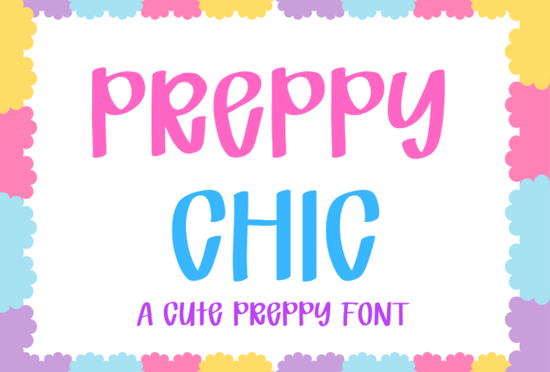
If you're looking for a font that blends bubbly handwriting with preppy confidence, Preppy Chic Font might be exactly what your next project needs. It’s got that friendly, hand-drawn look thick, rounded letters with just enough irregularity to feel authentic but also carries a bold, modern energy thanks to its clean strokes and playful contrast. Whether you’re designing social posts for a teen clothing brand or making cheerful classroom labels, this font adds personality without sacrificing readability.
What makes Preppy Chic Font stand out?
Unlike overly stylized script fonts that can be hard to read at small sizes, Preppy Chic keeps things chunky and clear. Its letterforms are based on bubble writing but refined for contemporary use smooth curves, consistent weight, and subtle imperfections that mimic real pen-on-paper texture. The high-contrast pink-and-blue palette shown in many previews isn’t baked into the font file itself (you’ll apply colors in your design software), but it hints at how well this typeface works with bright, happy color schemes.
It’s especially effective for short bursts of text: headlines, product names, quote graphics, or sticker captions. Because of its bold presence, it holds up beautifully in both digital and printed formats from Instagram stories to sublimation mugs.
Who should use this font?
Preppy Chic shines in projects targeting younger audiences or anyone drawn to upbeat, casual-prep aesthetics. Think:
- Print-on-demand sellers creating apparel, tote bags, or phone cases with phrases like “Good Vibes Only” or “Study Cute.”
- Teachers and homeschoolers designing worksheets, flashcards, or classroom decor that feels inviting but not childish.
- Digital planners and sticker artists who want handwritten-style headers that still feel fresh and organized.
- Sorority or club organizers making event flyers, merch, or welcome packets with a cohesive, youthful identity.
If your work leans toward minimalism or formal branding, this probably isn’t your go-to. But if you enjoy mixing fun typography with functional design, it’s a reliable pick.
How does it compare to other display fonts?
Creative Fabrica offers plenty of expressive display fonts, each with its own mood. For example, if you like Preppy Chic but want something even more nostalgic, you might explore the retro pixel-inspired options that echo classic video game lettering. Or if you’re drawn to urban edge rather than campus charm, the graffiti-style fonts bring raw street energy.
On the sweeter side, fonts like those in the Preppy Sweet collection lean into delicate swirls and softer curves great for birthday invites or baby shower designs. Meanwhile, other preppy-themed fonts might offer more traditional serif or collegiate vibes. Preppy Chic sits right in the middle: not too girly, not too edgy just confidently cute.
Tips for using Preppy Chic effectively
Because it’s a display font (meant for headlines, not body text), keep these best practices in mind:
- Pair it wisely. Use a simple sans-serif like Montserrat or Open Sans for supporting text so the design doesn’t feel cluttered.
- Avoid overuse. One or two words in Preppy Chic often make more impact than full paragraphs.
- Play with spacing. Slight letter-spacing adjustments can enhance legibility, especially for uppercase usage.
- Test print quality. If using for physical products, ensure the thick strokes don’t blur together on small items like keychains or labels.
Also, remember that while the font looks great in pink or sky blue, it’s fully customizable try mint green, lavender, or even black on white for a cleaner, monochrome preppy look.
Ready to try it?
If your creative work involves youth fashion, school projects, cheerful branding, or DIY crafts, Preppy Chic Font offers an easy way to inject warmth and trendiness without complicated design skills. It’s versatile enough for beginners but distinctive enough that experienced designers keep coming back to it for seasonal campaigns or limited-edition merch.
- Is my audience likely to respond to playful, hand-drawn energy?
- Am I using this for short, impactful text not long paragraphs?
- Do I have a complementary neutral font ready for balance?
If yes, this font could become a staple in your toolkit especially during back-to-school season, spring launches, or any time your message needs to feel approachable, confident, and just a little bit bubbly.